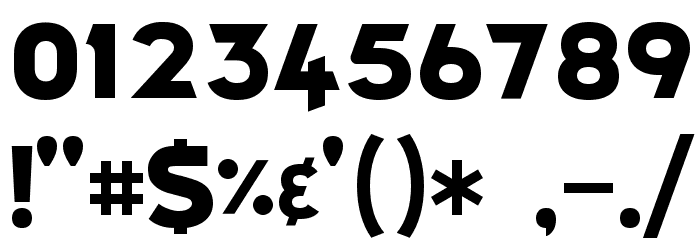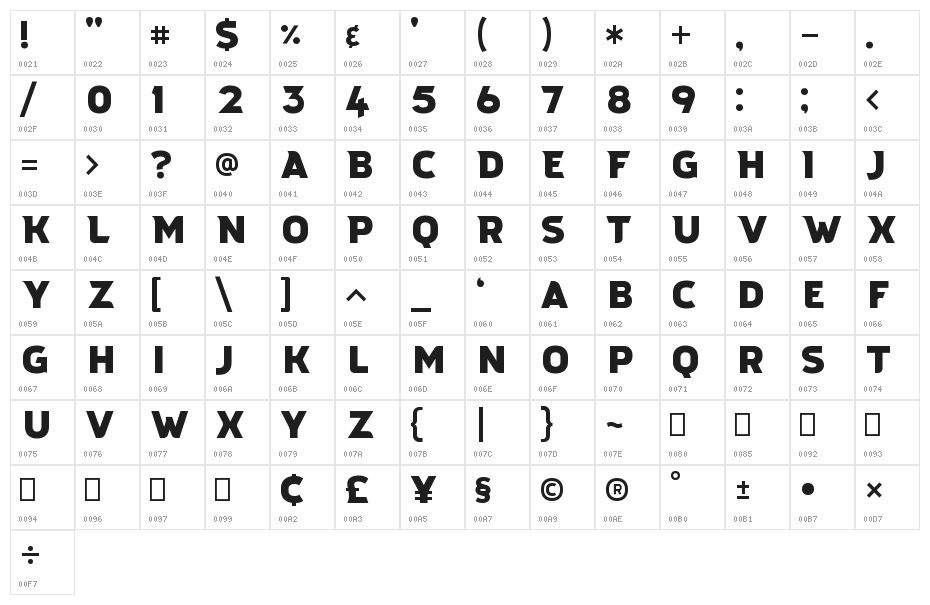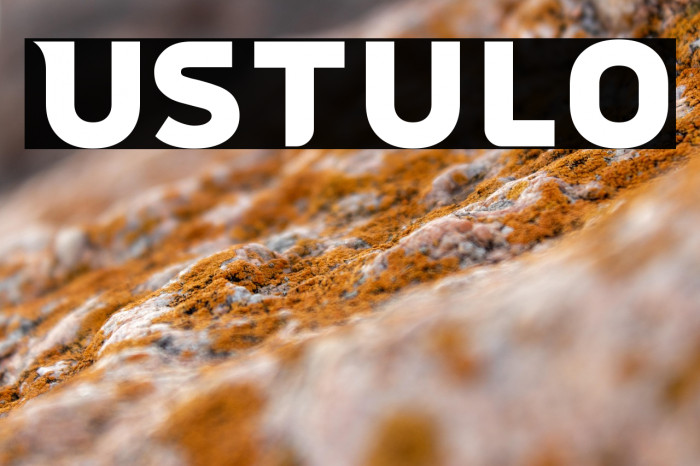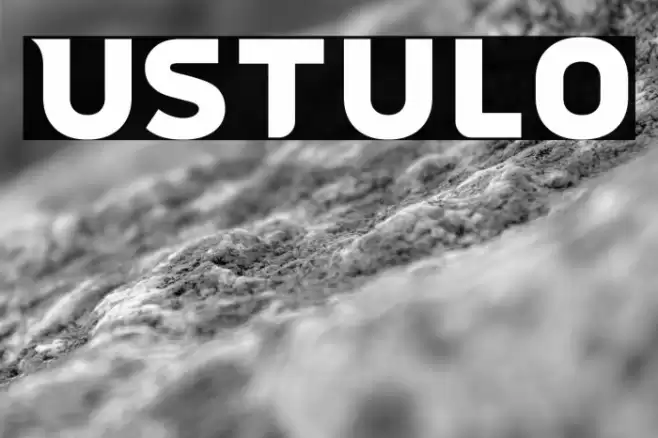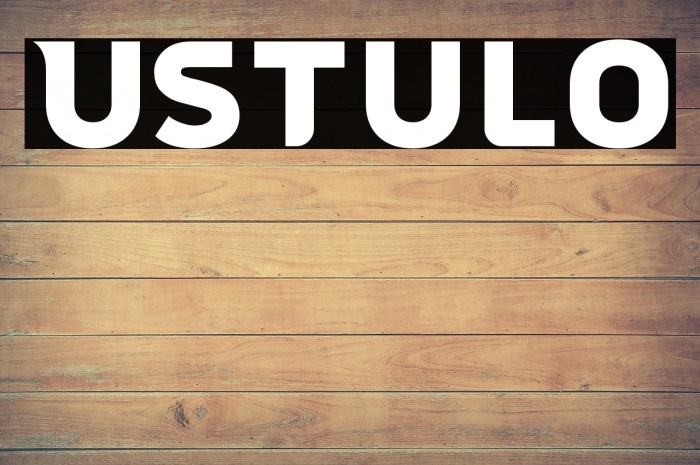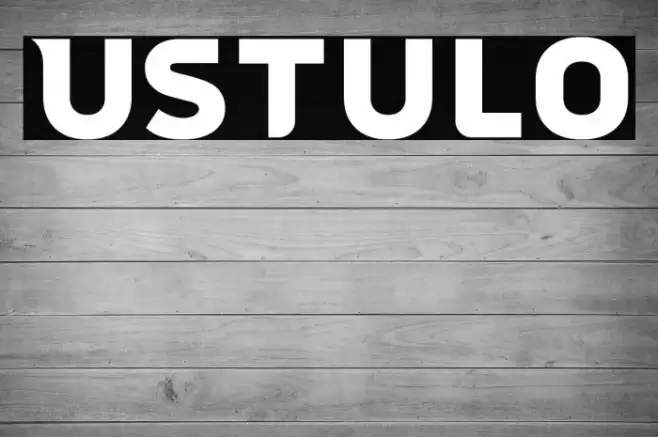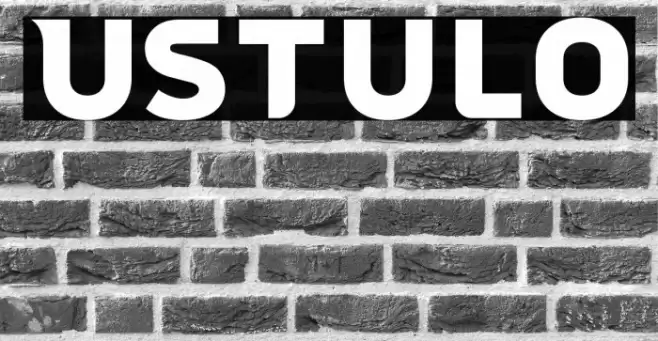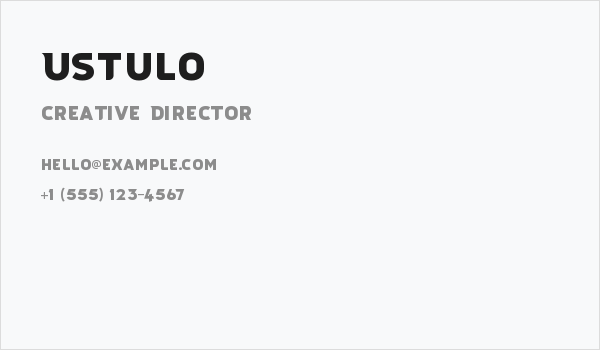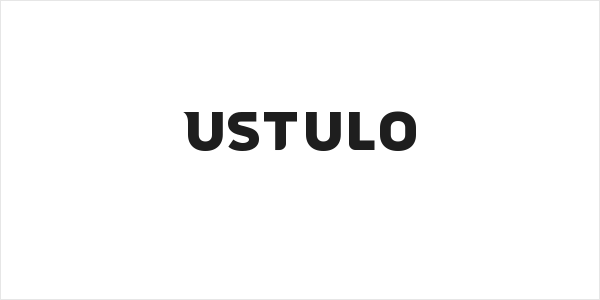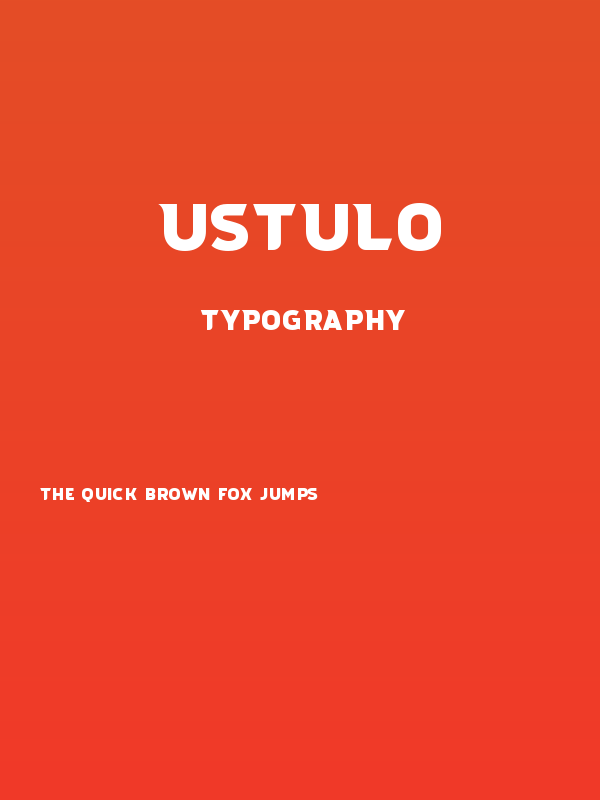
Ustulo Font
Ustulo Description
This font features bold, geometric letterforms with a strong presence. The characters are uniformly thick, providing a consistent and impactful look. The uppercase letters are particularly striking, with sharp angles and a modern aesthetic. The numbers and special characters maintain this bold style, ensuring readability and visual appeal. The overall design is clean and straightforward, making it suitable for a variety of applications where clarity and emphasis are needed.
| Proposed Projects | Ideal for branding, advertising, headlines, and signage where a strong visual impact is desired. |